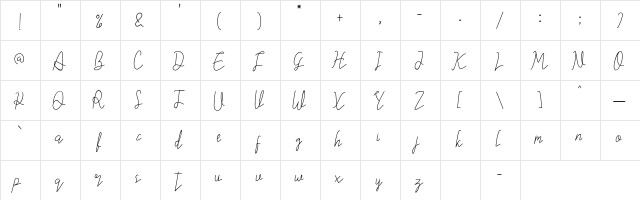
Nartalia Regular
| Designer | hediMF |
Design Context for Nartalia Typeface
Nartalia takes a measured approach to typography — its balanced proportions and neutral character make it a reliable workhorse for both digital and print work.